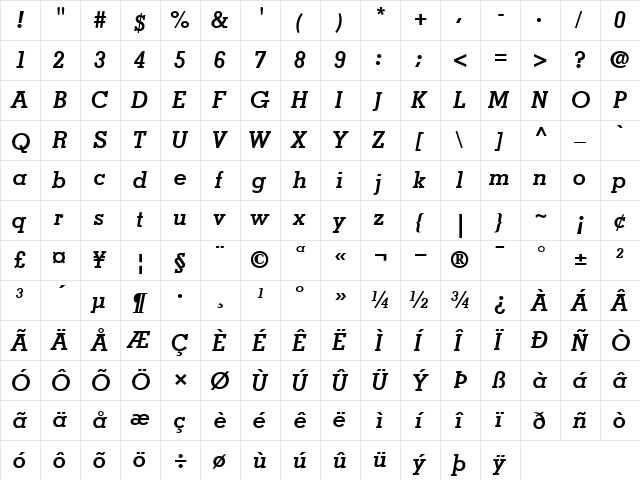
Memphis BoldItalic
Design Context for Memphis Typeface
Memphis offers clean, dependable letterforms without strong stylistic allegiance, making it a practical choice for designers who need flexibility. Its italic angle brings a sense of urgency and motion to the letterforms. The heavy weight commands attention and anchors typographic hierarchies.
Pro Tip: Use Memphis for emphasis, pull quotes, and subheadings where its slanted energy can add rhythm to the layout.